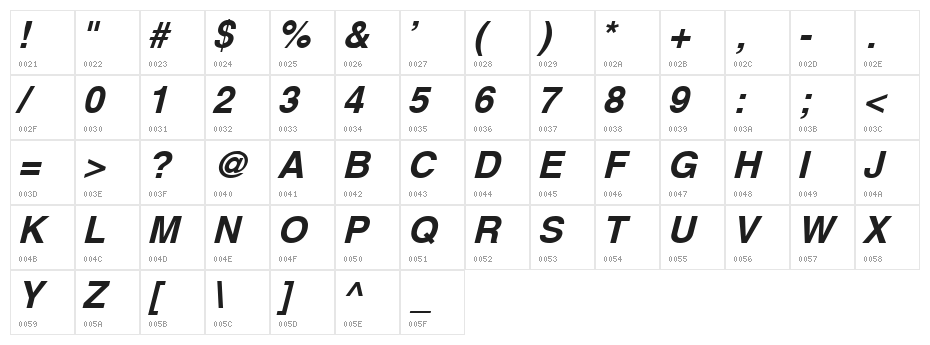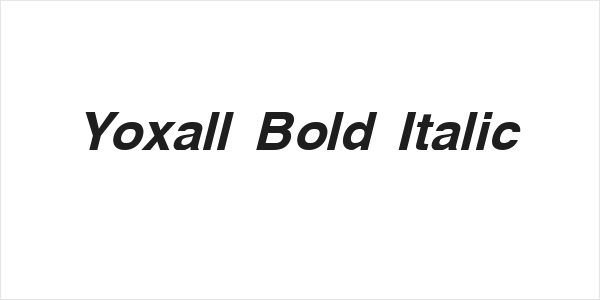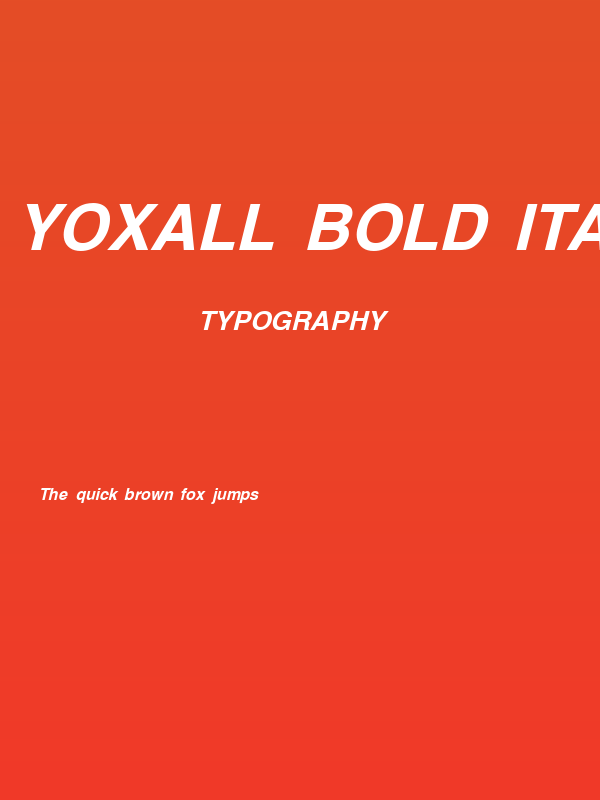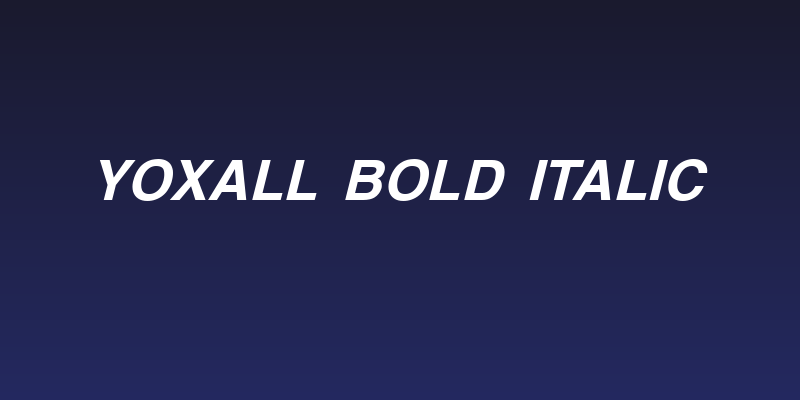
Yoxall Bold Italic Font
Yoxall Bold Italic Description
This font exhibits a bold and italicized style, characterized by its strong, slanted letterforms that convey a sense of dynamism and emphasis. The uppercase and lowercase letters maintain a consistent weight, ensuring readability while adding a touch of elegance. The numerals are clear and robust, matching the overall boldness of the alphabet. Special characters are well-integrated, providing versatility for various design needs. The font's italic nature adds a forward-leaning energy, making it suitable for attention-grabbing headlines or impactful statements.
| Use Case | Headlines, Logos, Advertising |
| Proposed Projects | Ideal for branding, advertising, headlines, and any project requiring a strong, emphatic typeface. |